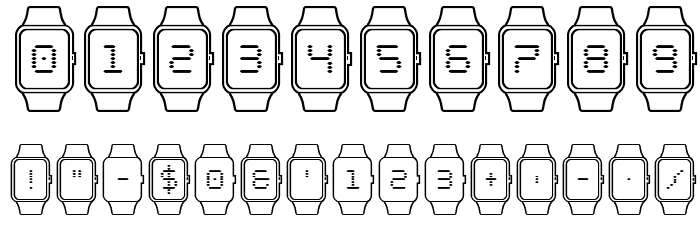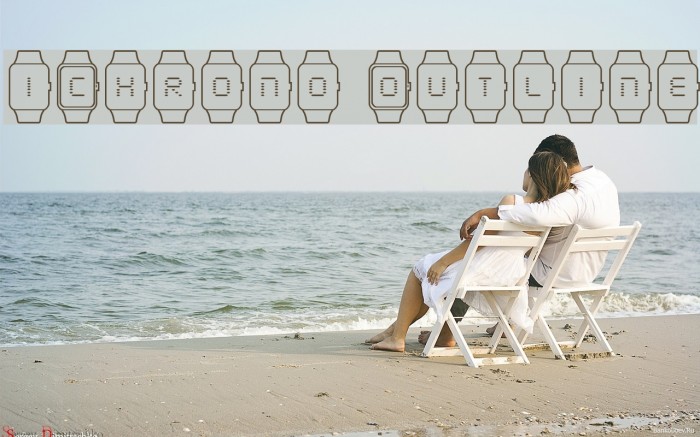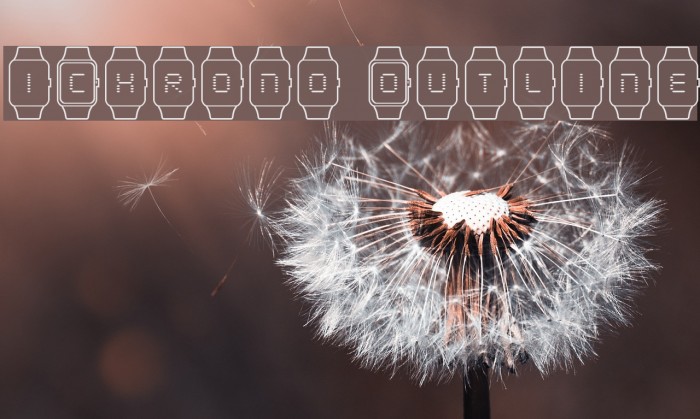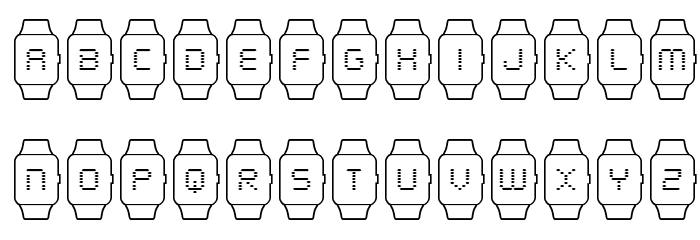
iChrono Outline Font
This font features a unique design where each character is encased within the outline of a digital wristwatch. The characters themselves are composed of segmented lines, reminiscent of digital clock displays. This creates a futuristic and tech-inspired aesthetic. The font is highly stylized, with each letter and number maintaining a consistent geometric form. The use of outlines adds a layer of depth, making it suitable for display purposes where a modern and digital theme is desired. The characters are evenly spaced, and the overall design is clean and precise, emphasizing a digital and contemporary look.
A digital, watch-themed font with segmented characters in outlined displays.
• Proposed Projects: Ideal for tech-related branding, digital-themed posters, and futuristic design projects.
• Category: Decorative/Display
• Overall Style: Modern
• Use Case: Headlines, Logos